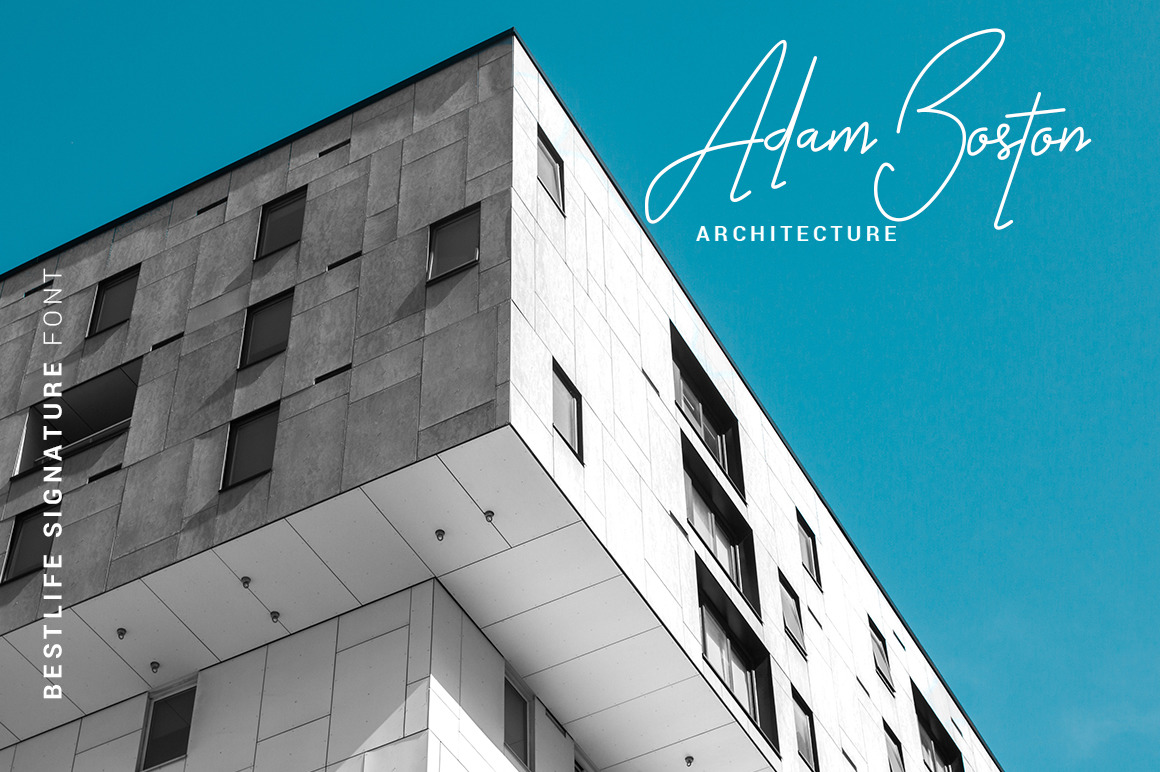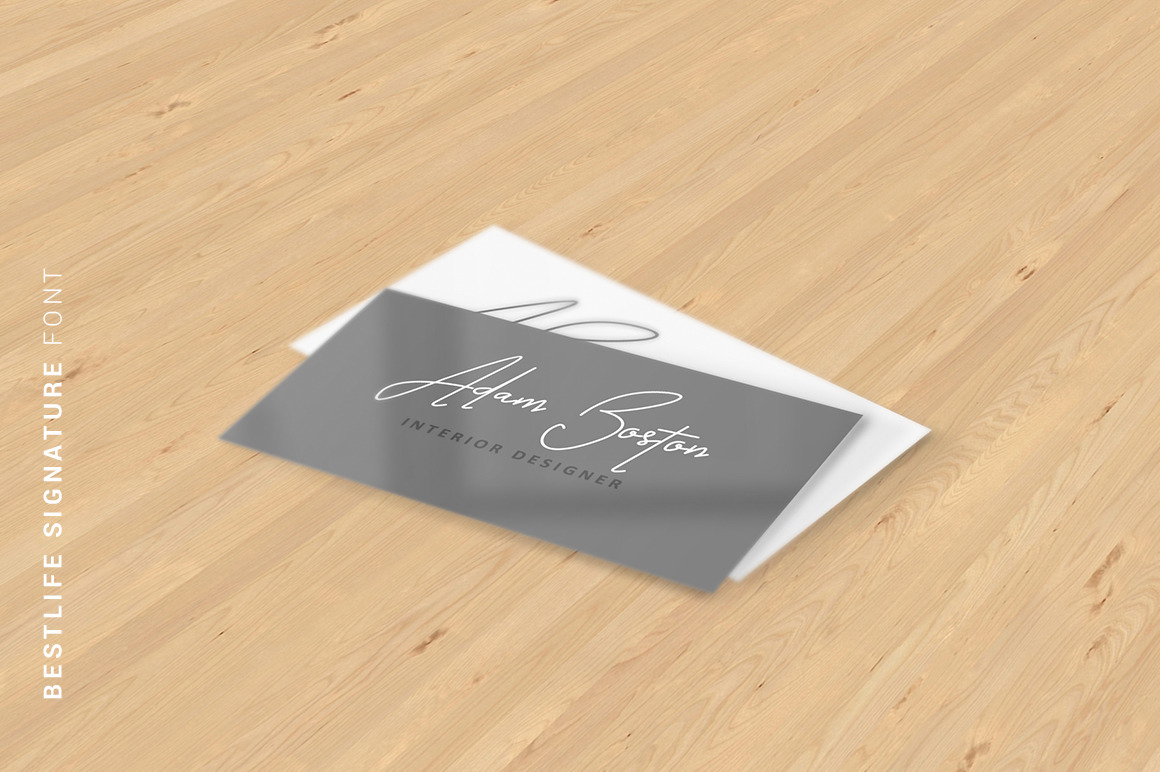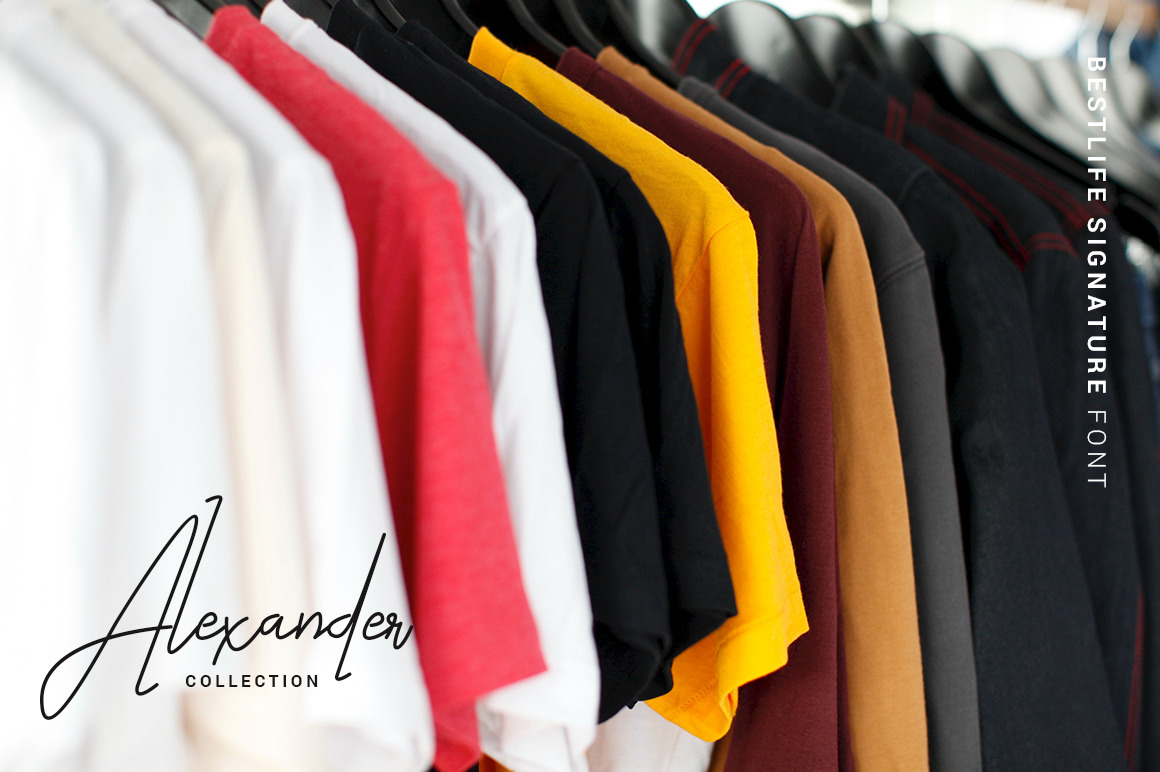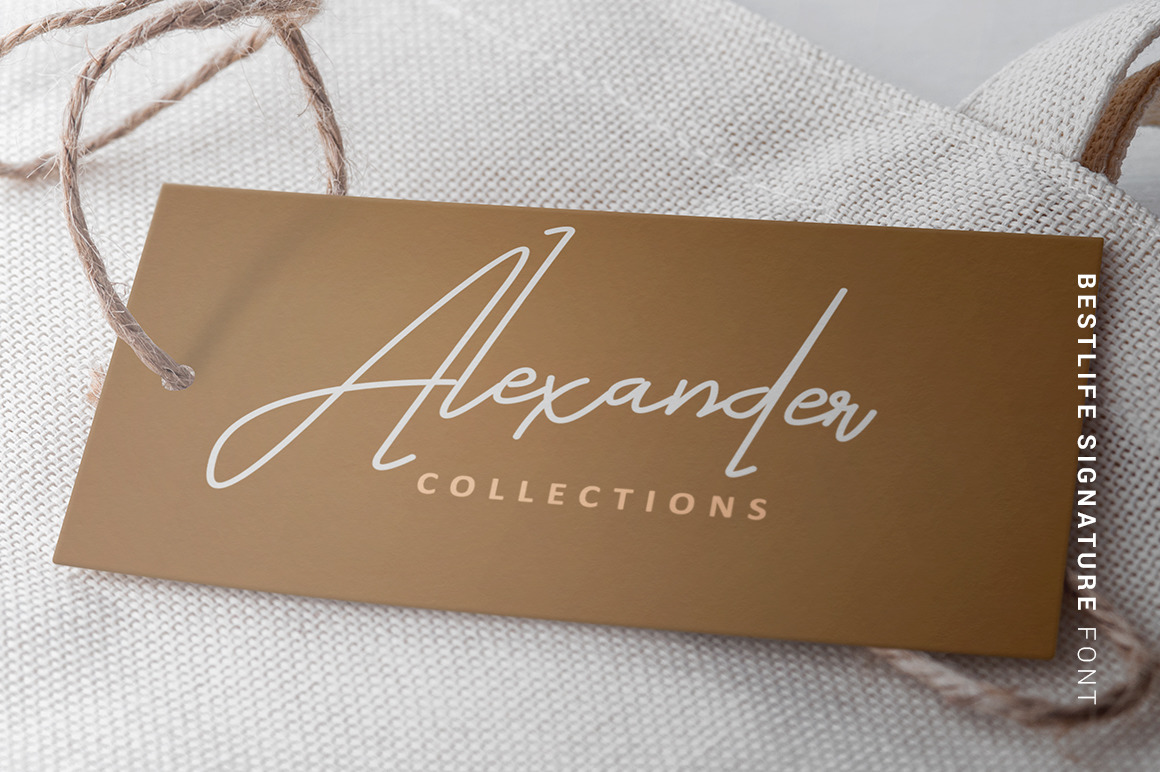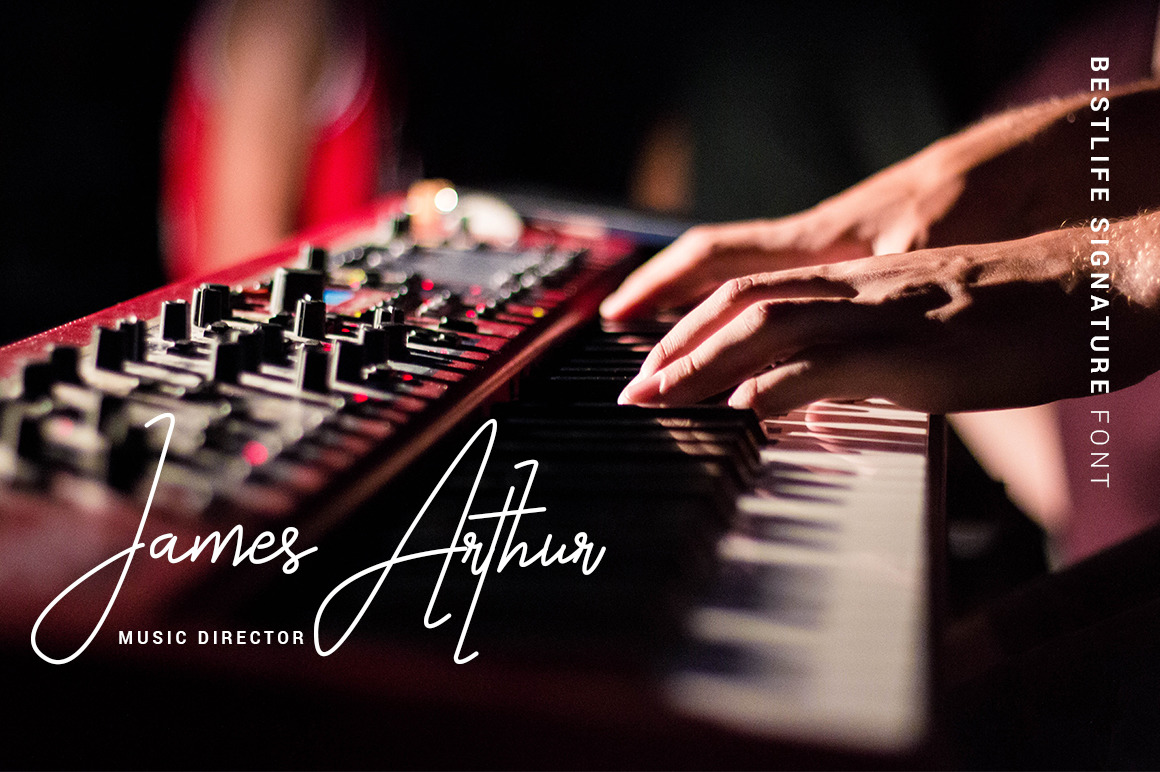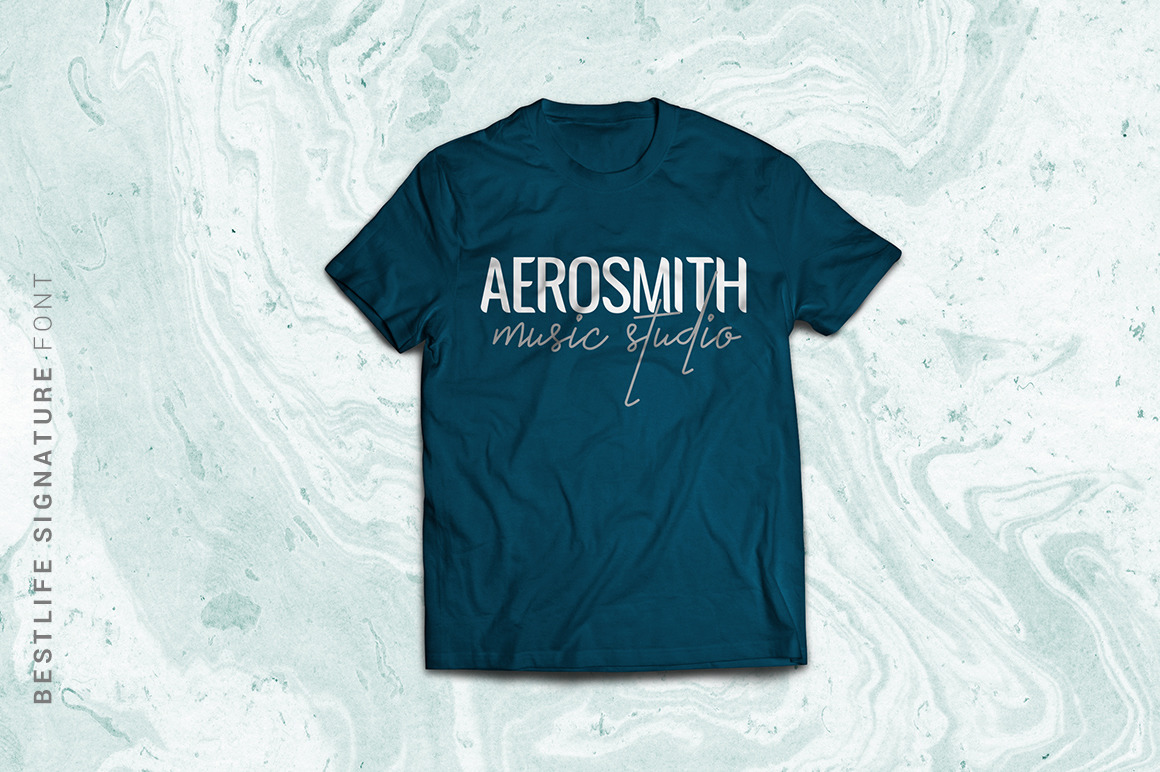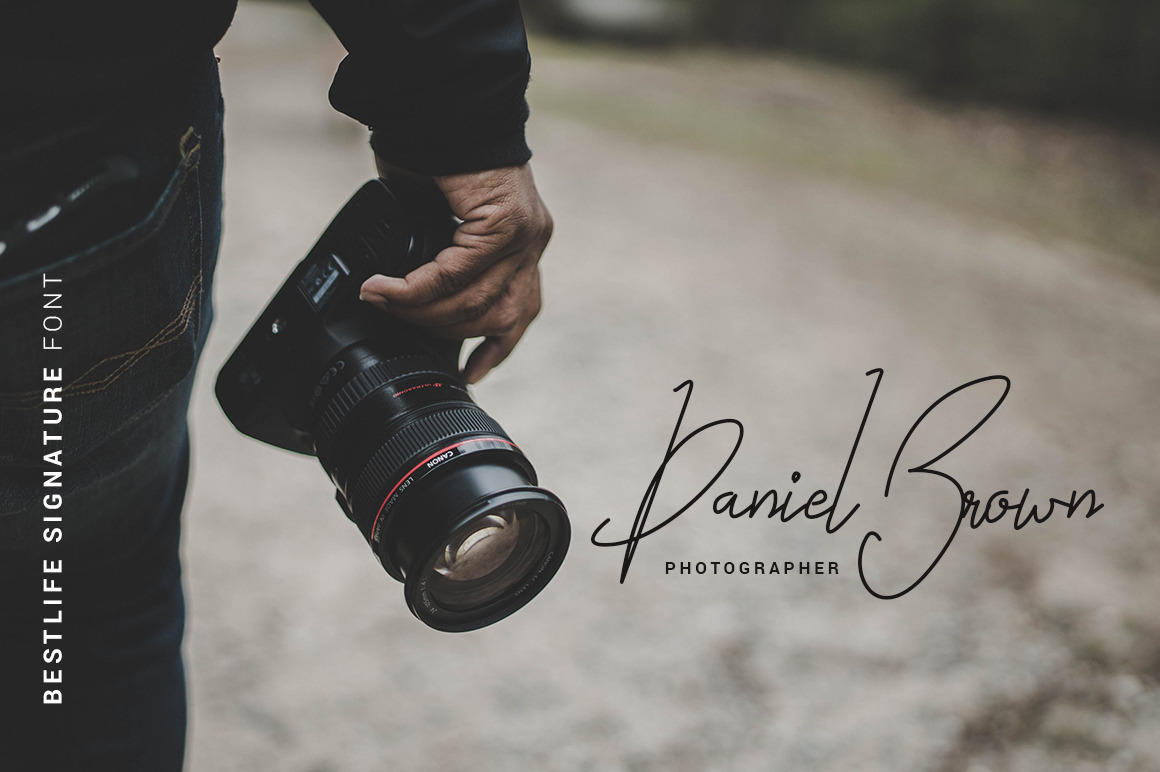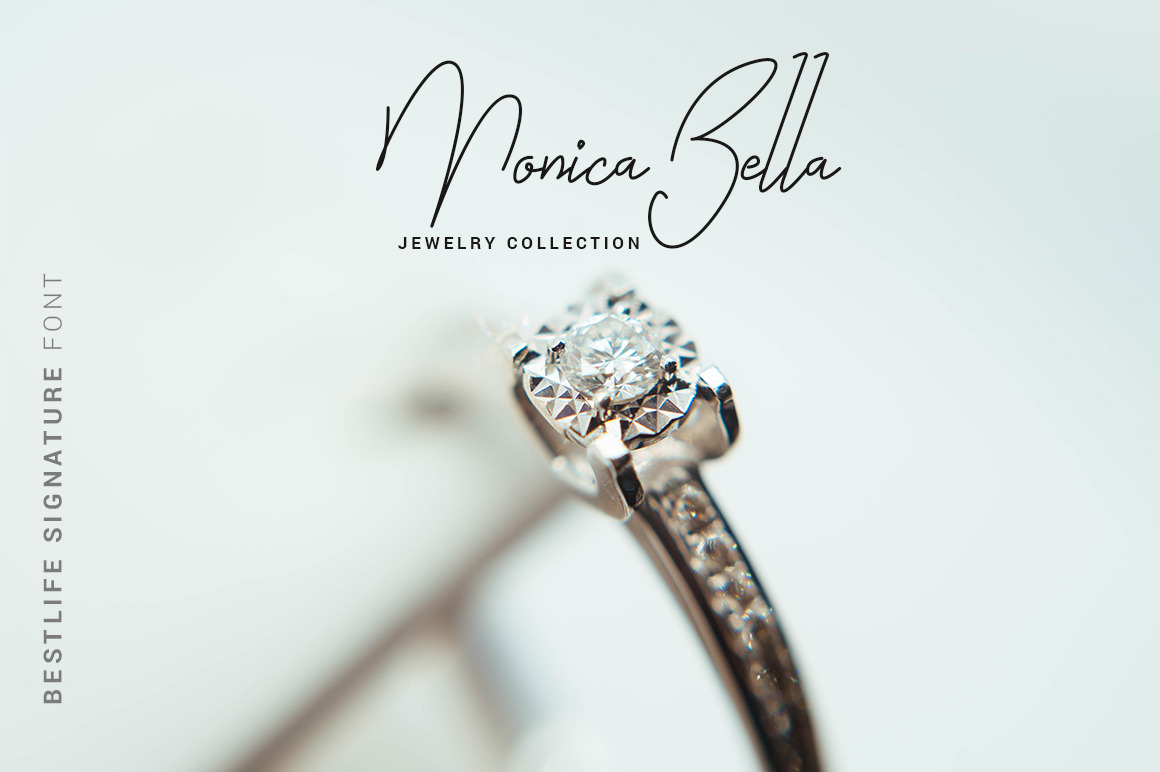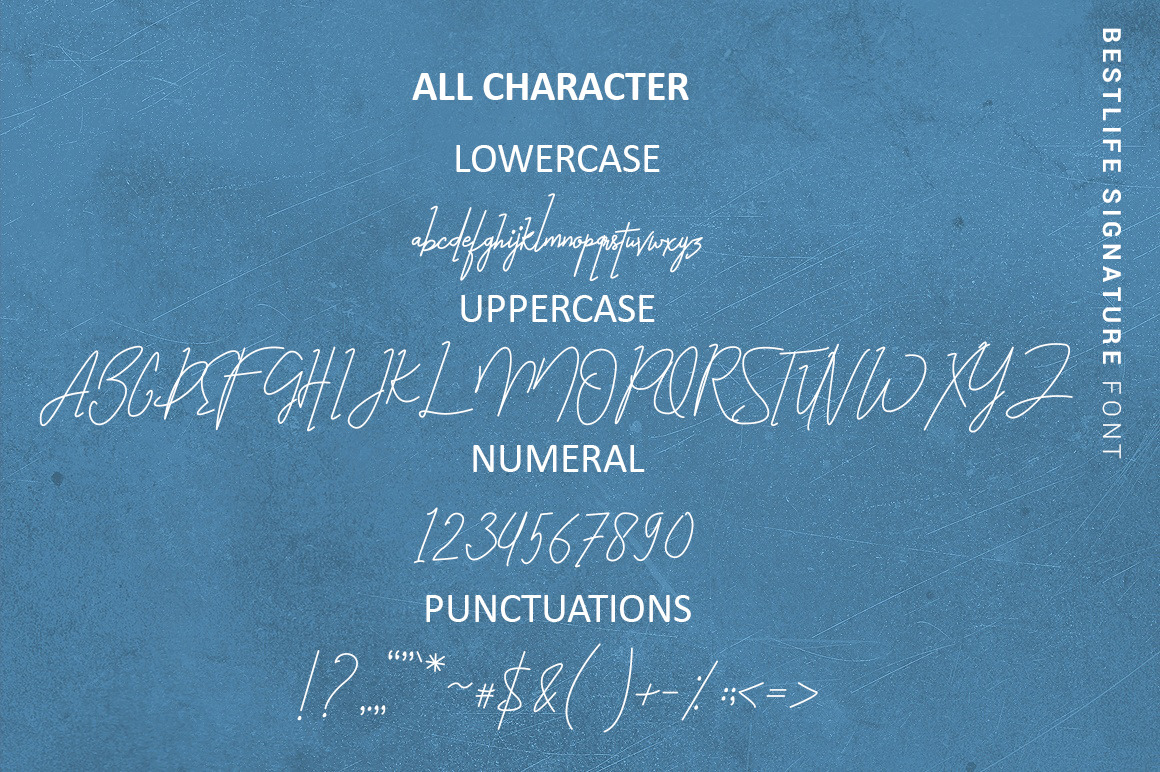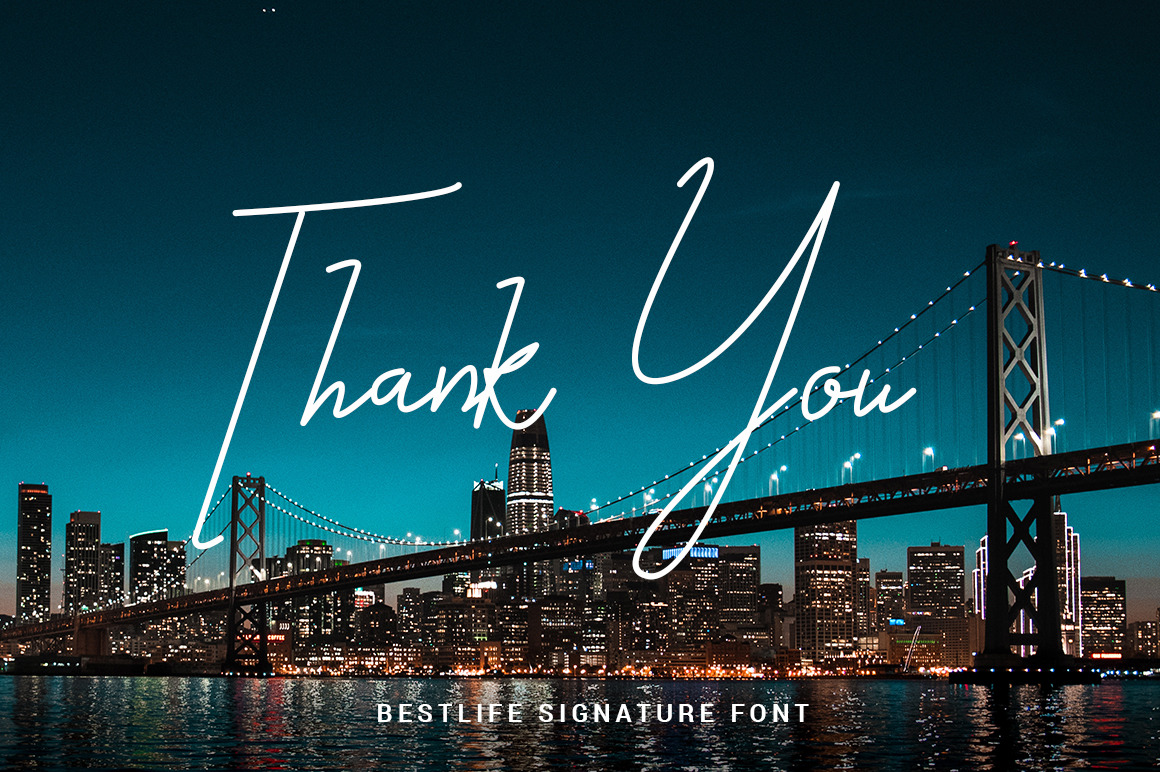
Bestlife - Single Line Font
Introducing: Bestlife! A Single Line with a monoline style.
Bestlife is perfect for crafting, photography, watermark, social media posts, advertisements, logos & branding, invitation, product designs, label, stationery, product packaging, special events, etc.
•Multilingual Support
•Bestlife with Line style